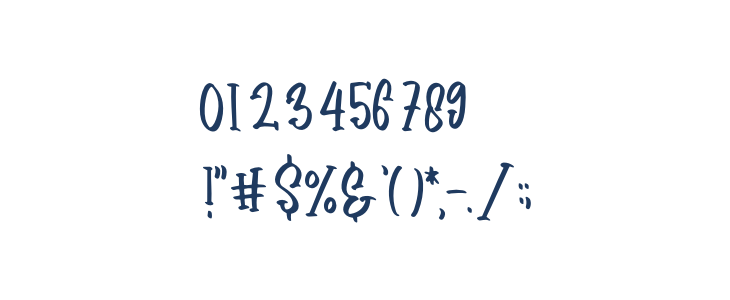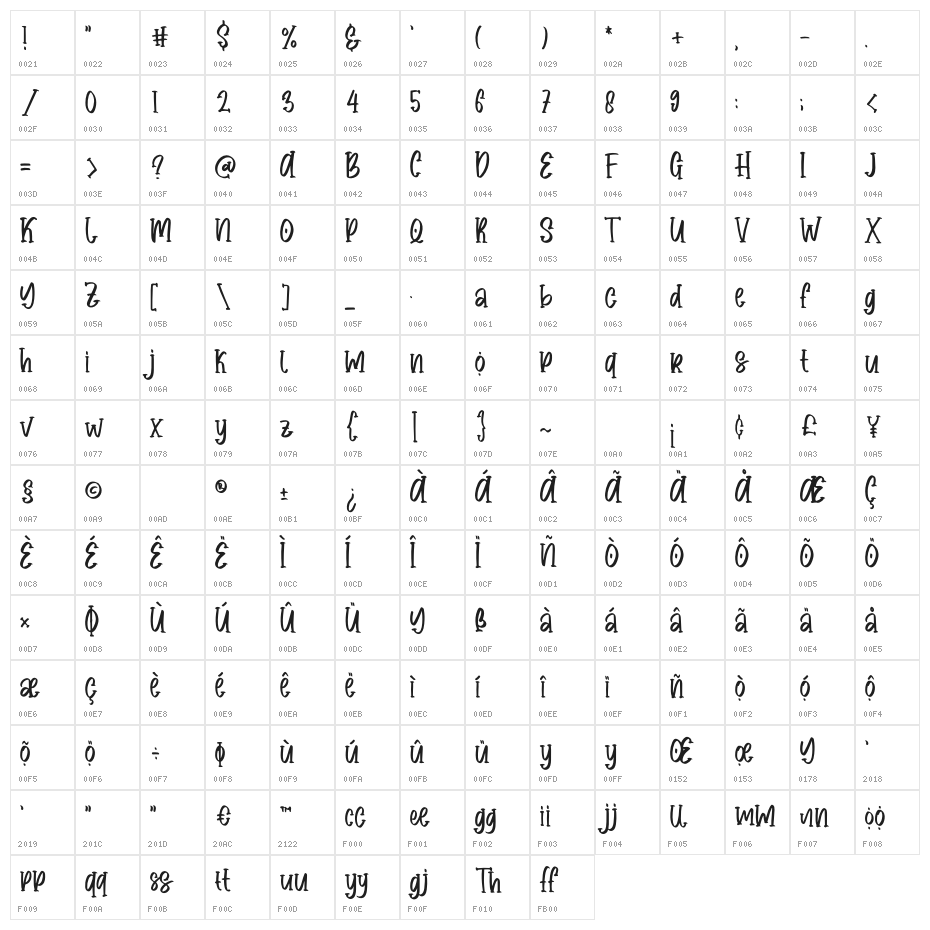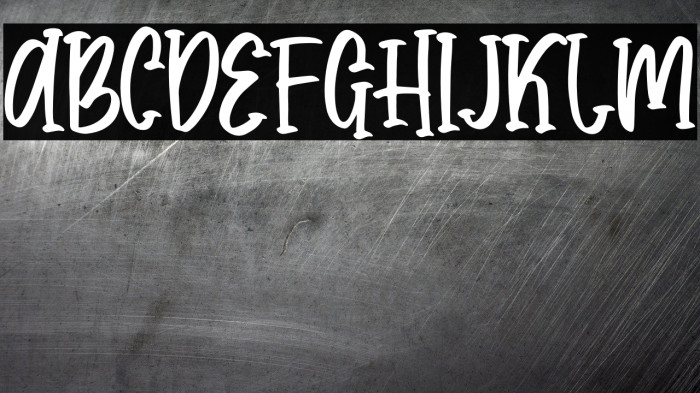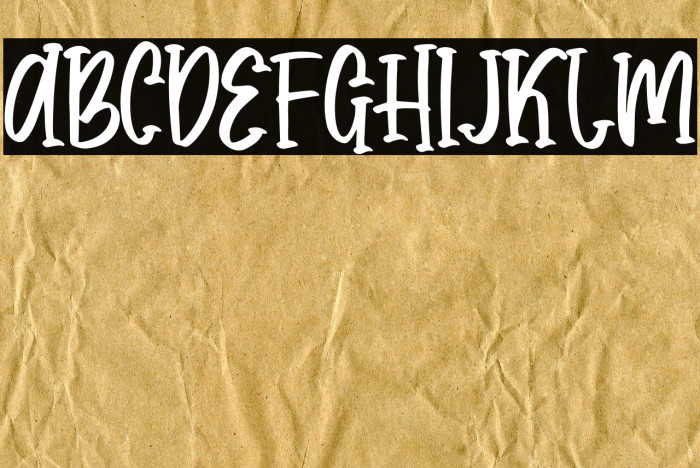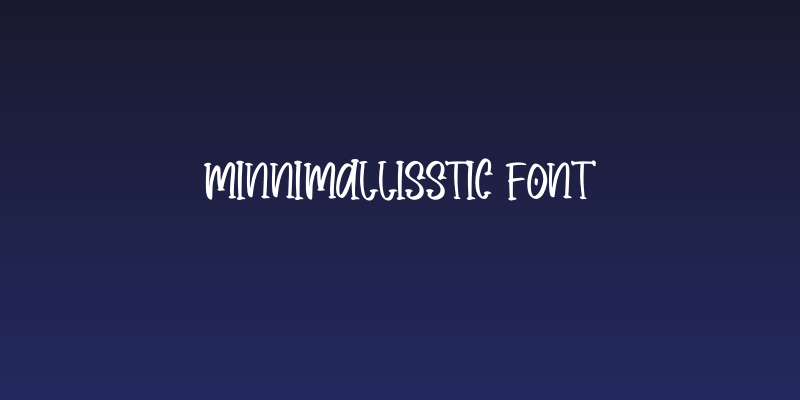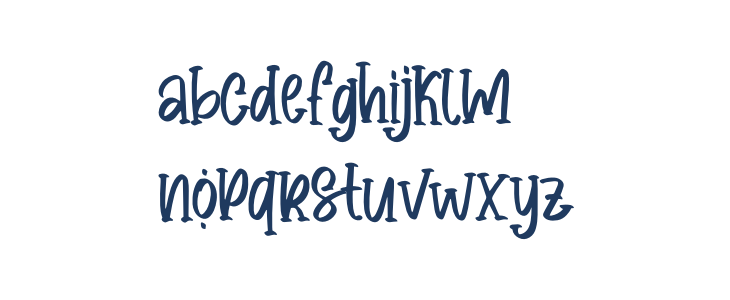
Minnimallisstic Font Font
Minnimallisstic Font Description
This font features a playful and whimsical style with a handwritten appearance. The characters are bold and slightly irregular, giving them a lively and dynamic feel. The strokes are thick and consistent, providing a strong visual impact. The uppercase letters are tall and narrow, while the lowercase letters have a more rounded and flowing form. The numbers and special characters maintain the same playful aesthetic, making the font versatile for various creative projects.
| Proposed Projects | Ideal for children's books, playful branding, greeting cards, and creative posters. |